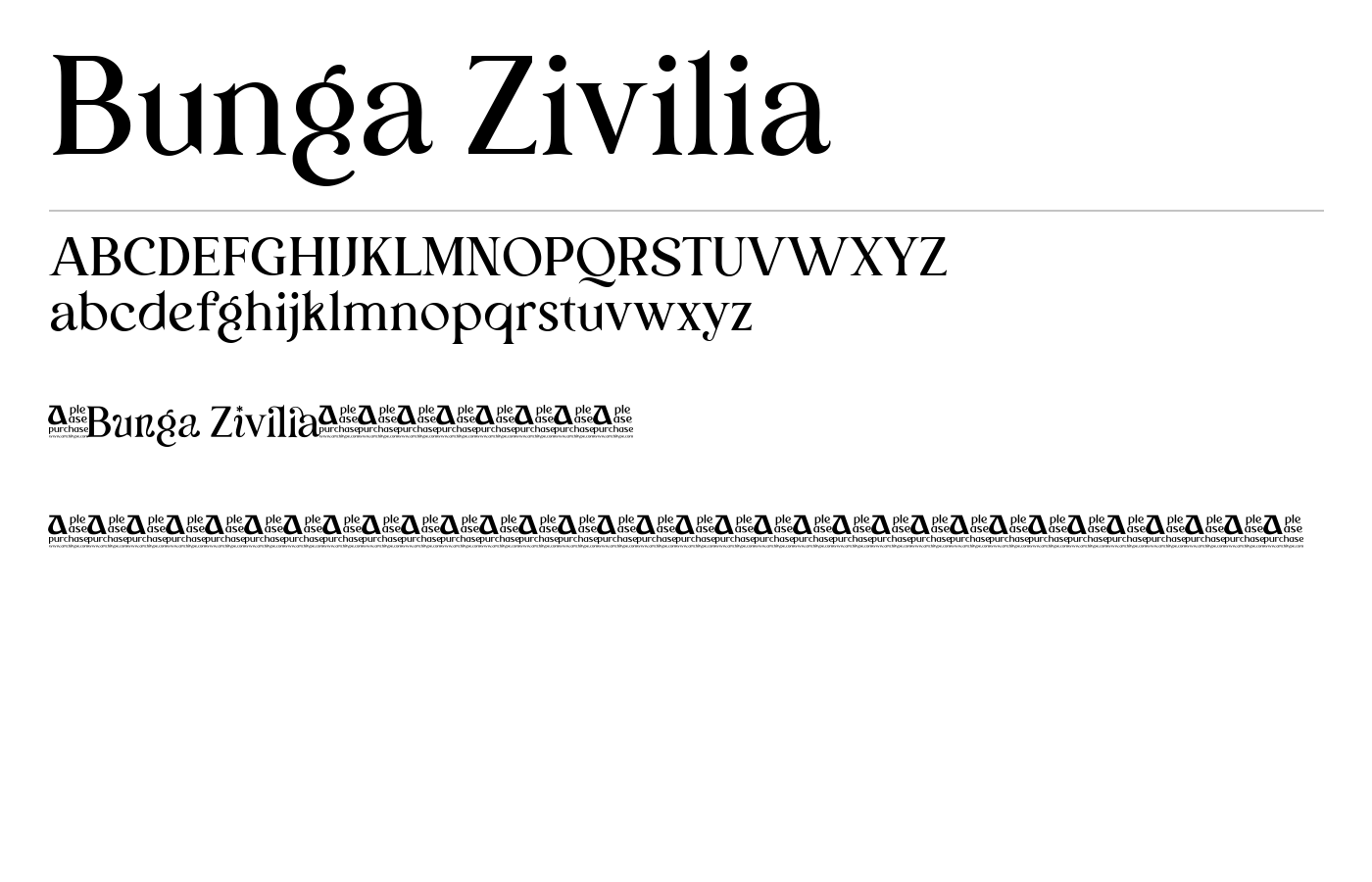
Bunga Zivilia is an elegant serif font with a classic yet distinctive feel, featuring medium contrast and slender, bracketed serifs that add a refined touch. Its tall x-height and slightly condensed letterforms make it well-suited for sophisticated branding, editorial headlines, and luxury packaging where a blend of tradition and modernity is desired. This font’s unique curves and graceful strokes convey a sense of timeless style while remaining highly readable and versatile.
Bunga Zivilia Font
About Bunga Zivilia Font
| Font family | Bunga Zivilia Font |
| Designer | Chairul Ma'arif |
| Trademark | ArtchiType Studio |